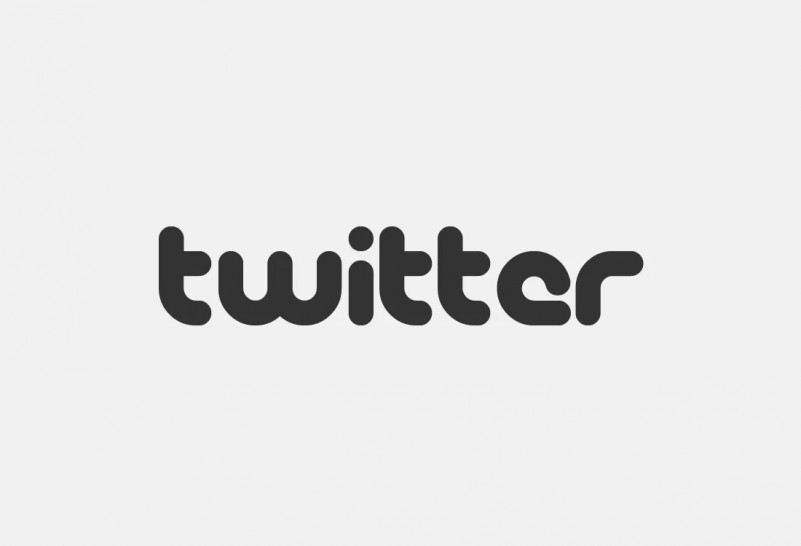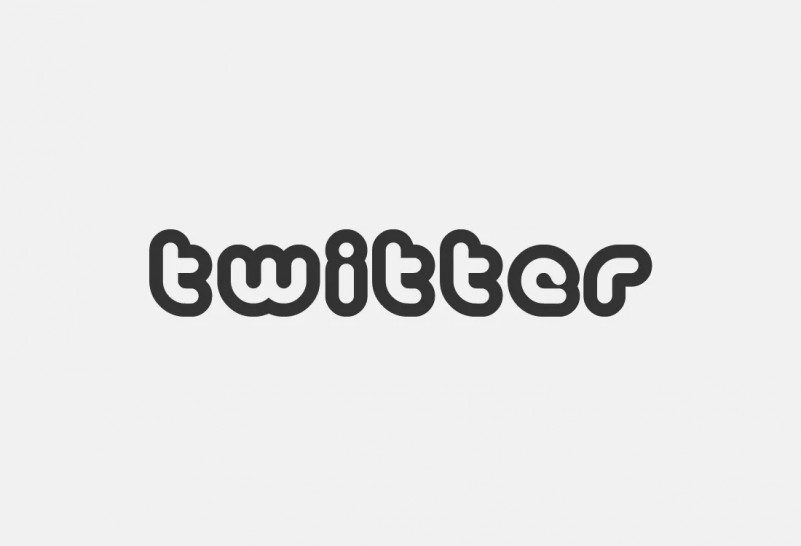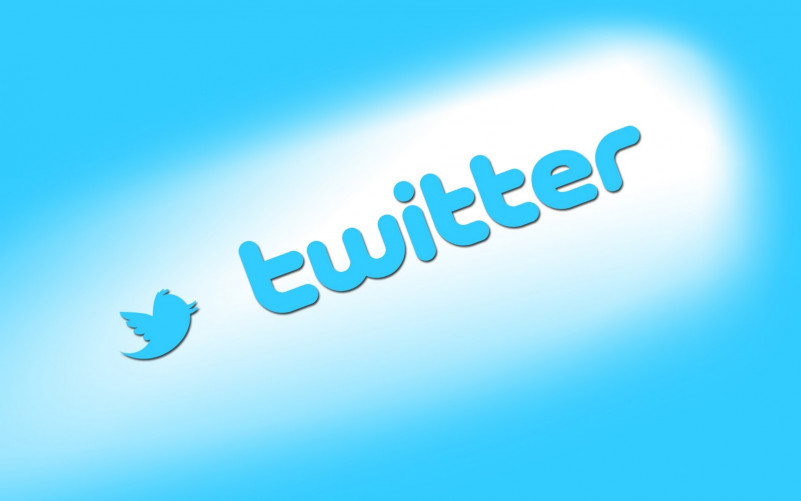
Twitter Font
Twitter is an online messaging service. It allows you to publish the so-called “tweets” of up to 140 characters. It appeared in July 2006 when Evan Williams, Biz Stone, Noah Glass and Jack Dorsey presented the final version of the social network for posting short notes.
The Twitter logo was designed using the font Pico Alphabet by Maniackers Design with some modifications. Pico Alphabet is available in two styles, Pico Black and Pico White.
Update: Twitter introduced a new logo in 2012 featuring the “Twitter Bird”. The word “Twitter” and the lowercase letter “t” are now no longer used.